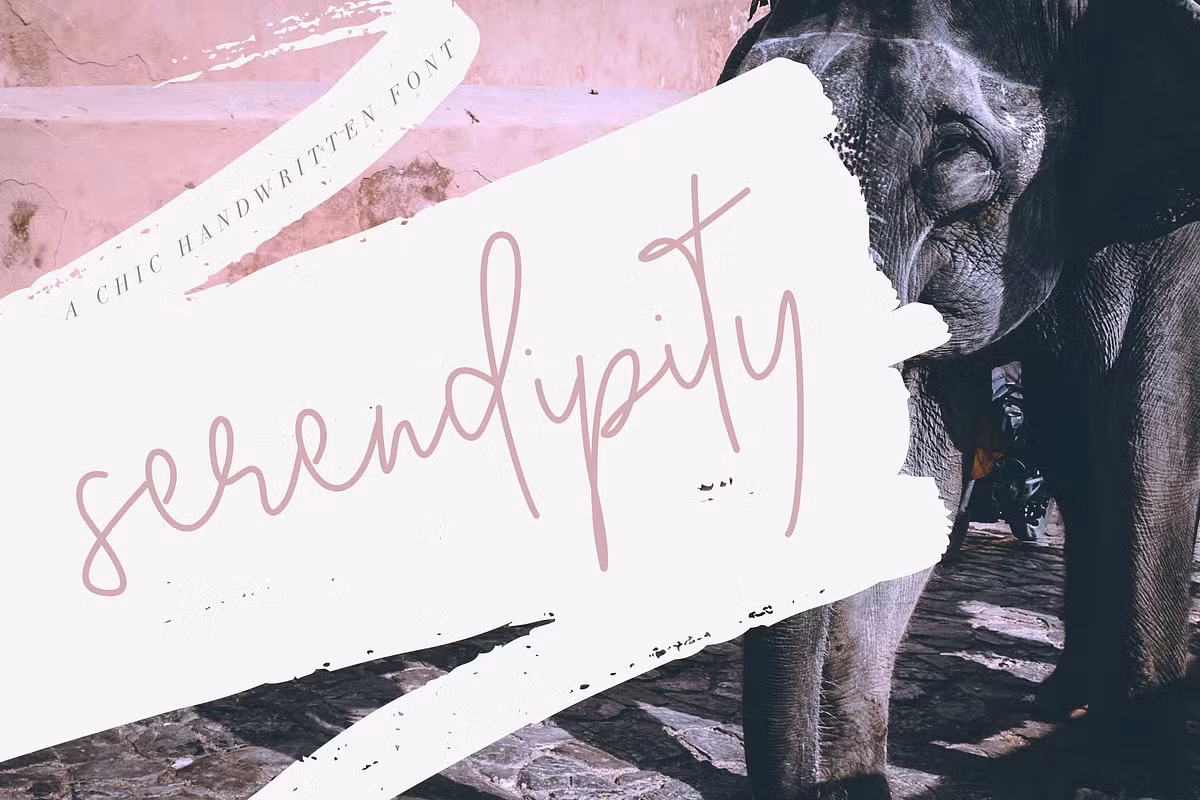
The Serendipity Font - Chic Script Free Download is a stylish and elegant typeface designed to add a touch of sophistication to your designs. Featuring flowing, cursive letterforms with a chic and graceful vibe, this font is perfect for creating luxury branding, wedding invitations, logos, and other elegant projects. Whether you're working on a high-end brand, a personal event, or any design that requires a refined, handwritten touch, Serendipity brings a beautiful, personal feel to your work.
Serendipity Font - Chic Script Free Download is ideal for designers looking to infuse their work with a timeless, sophisticated script style. Perfect for weddings, fashion branding, and premium marketing materials, this font will elevate your designs with its graceful, handwritten flair. Download it today and add an elegant touch to your creative work with Serendipity!